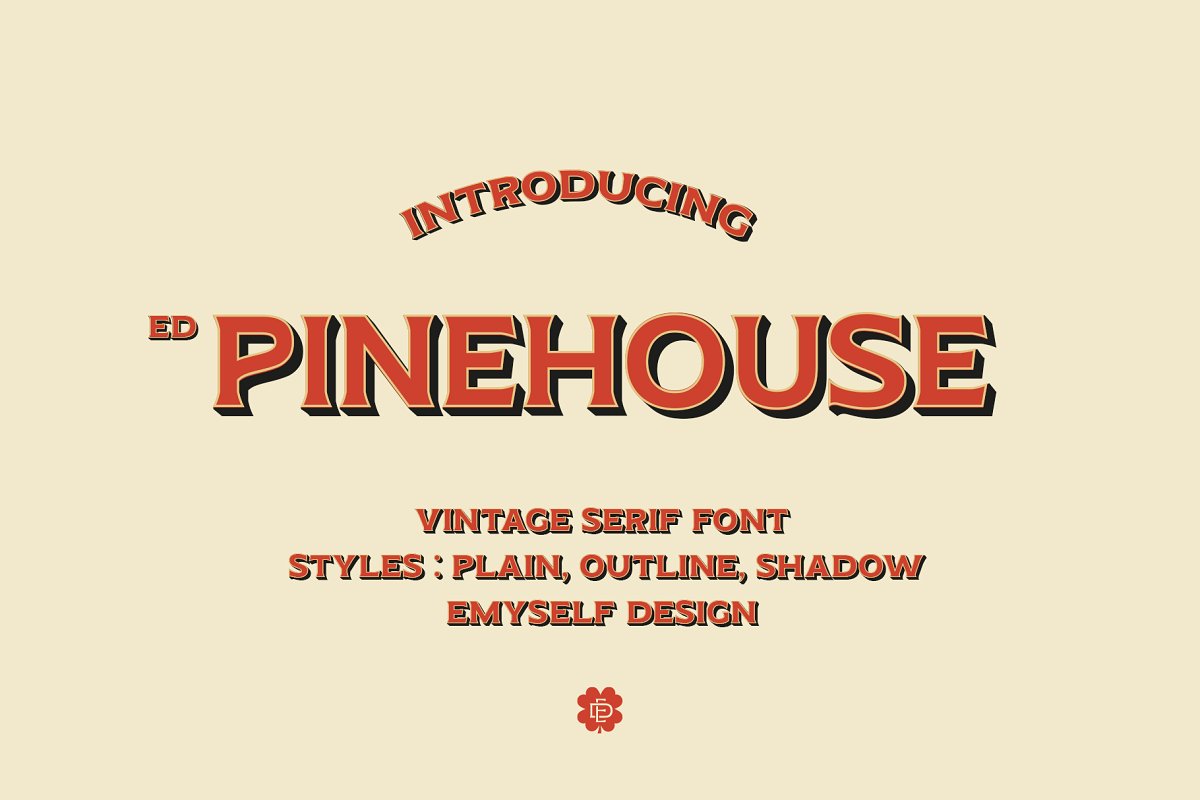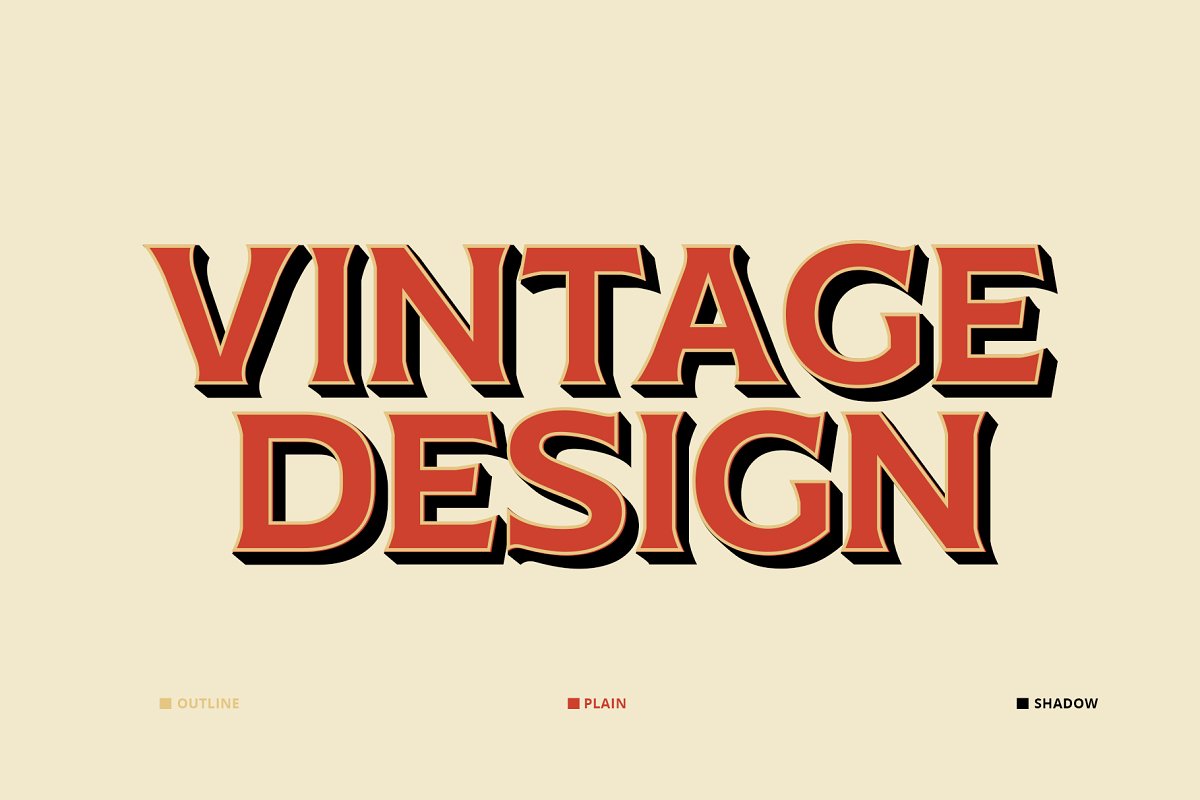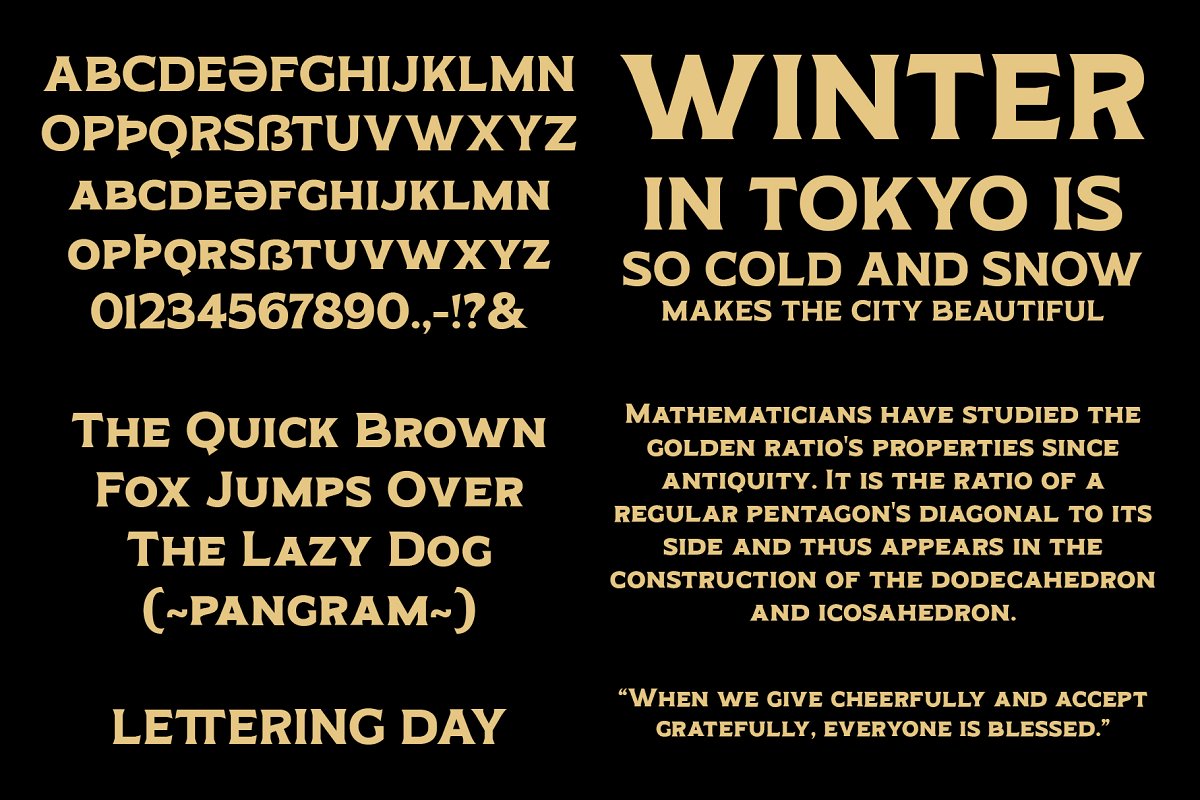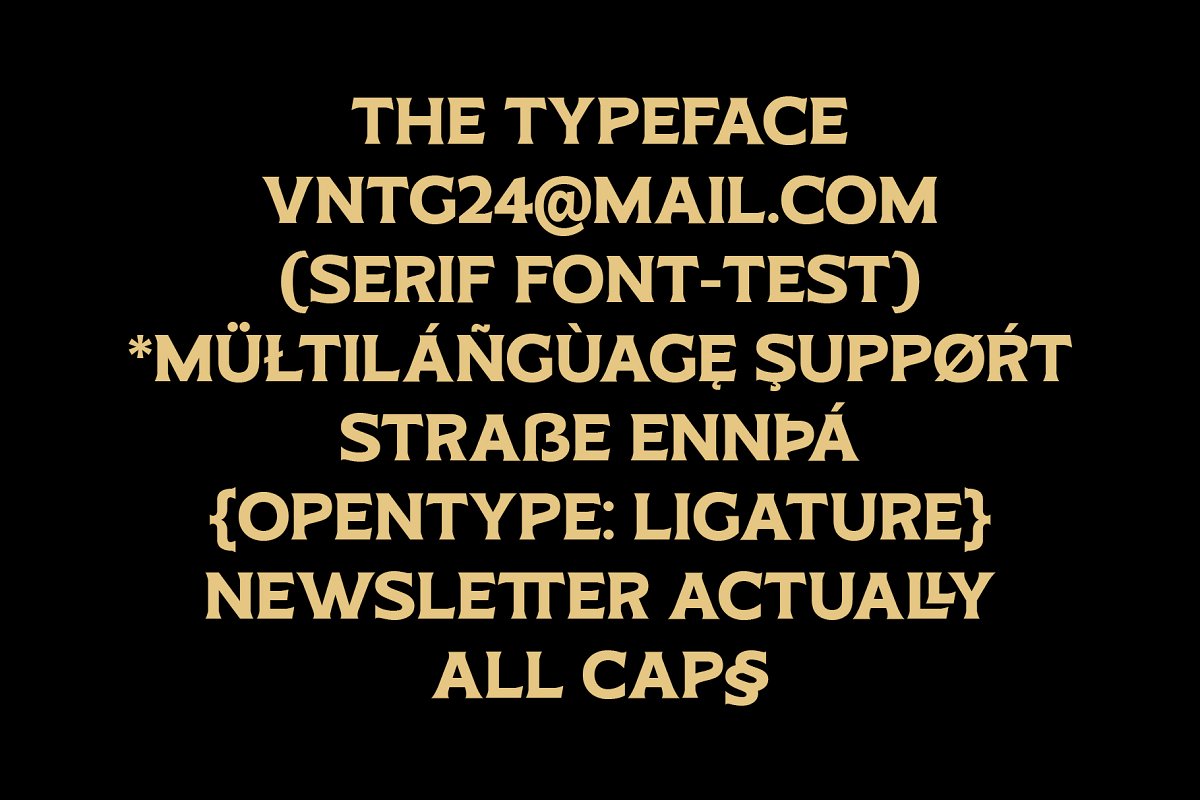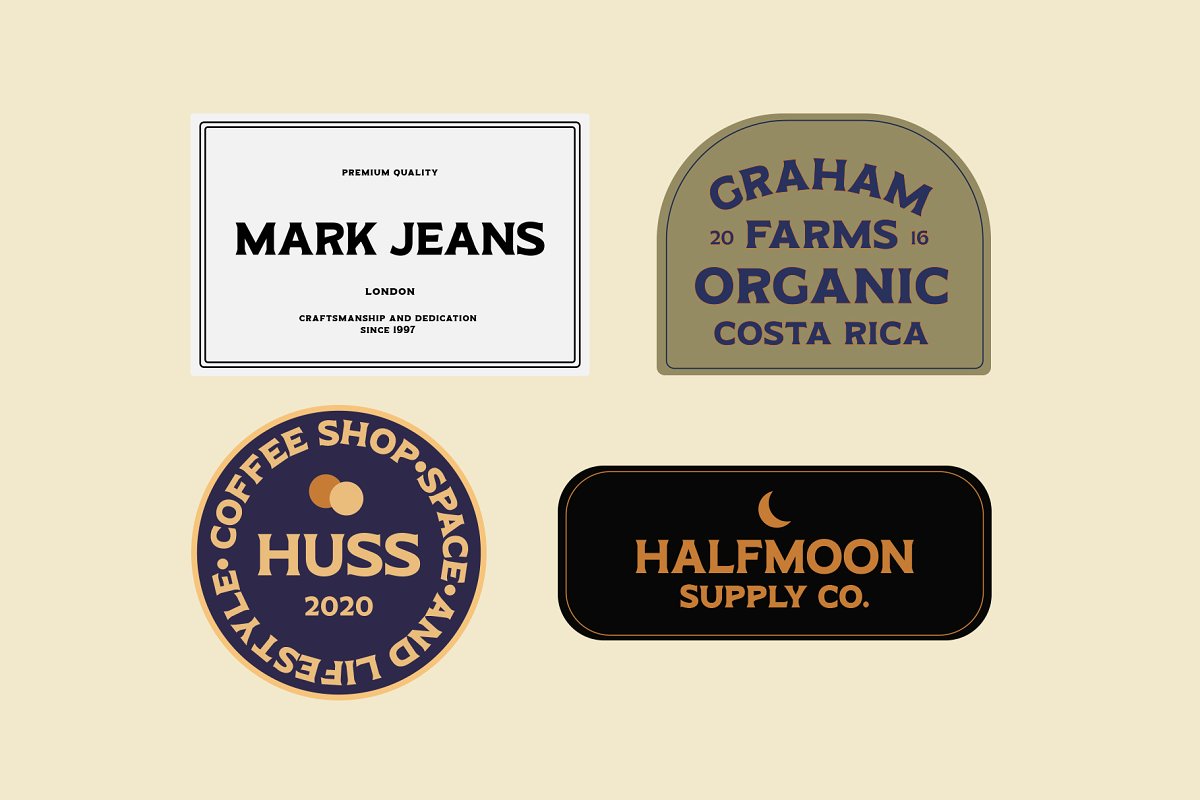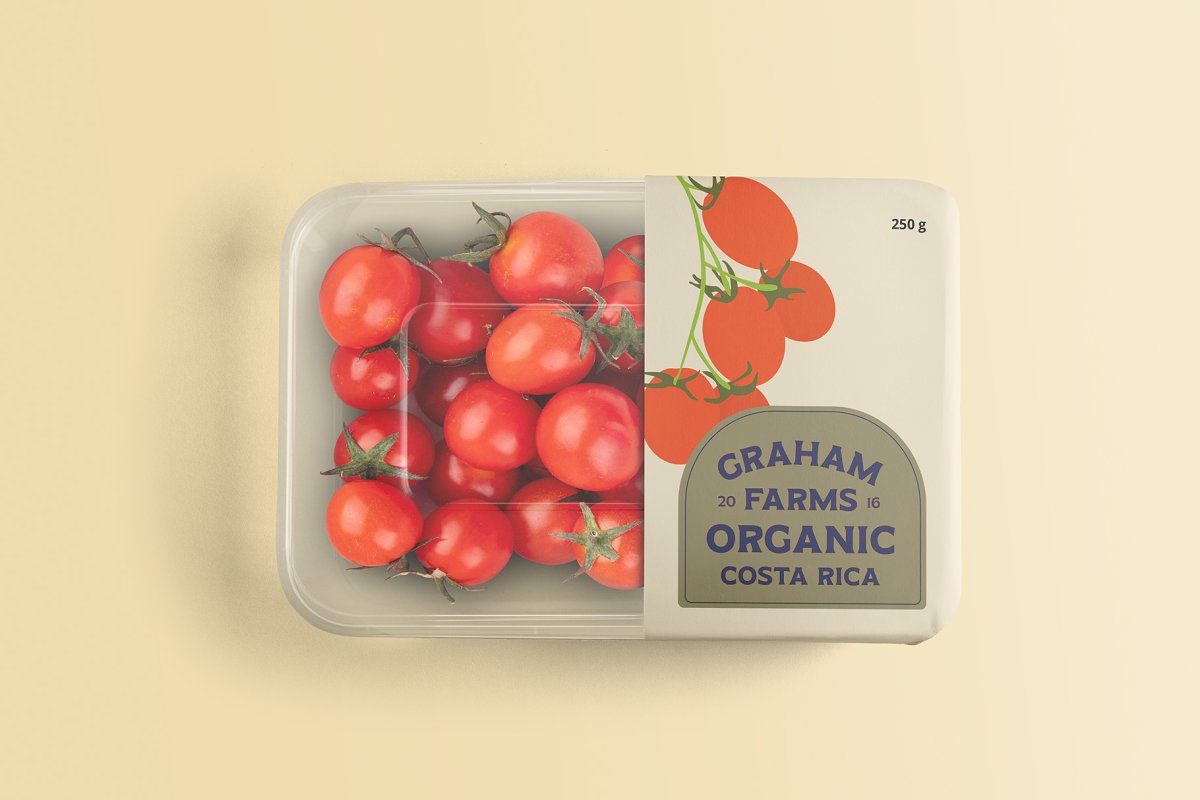
About the ED Pinehouse Vintage Serif
Pinehouse is an elegant vintage serif font that consists of 3 types of styles: plain, outline, and shadow, which can be combined to create a 3d or hand painted impression, Pinehouse wants a font that consists of uppercase letters with different sizes/heights with lowercase characters, Pinehouse is also equipped with features such as Ligature, and multi language support